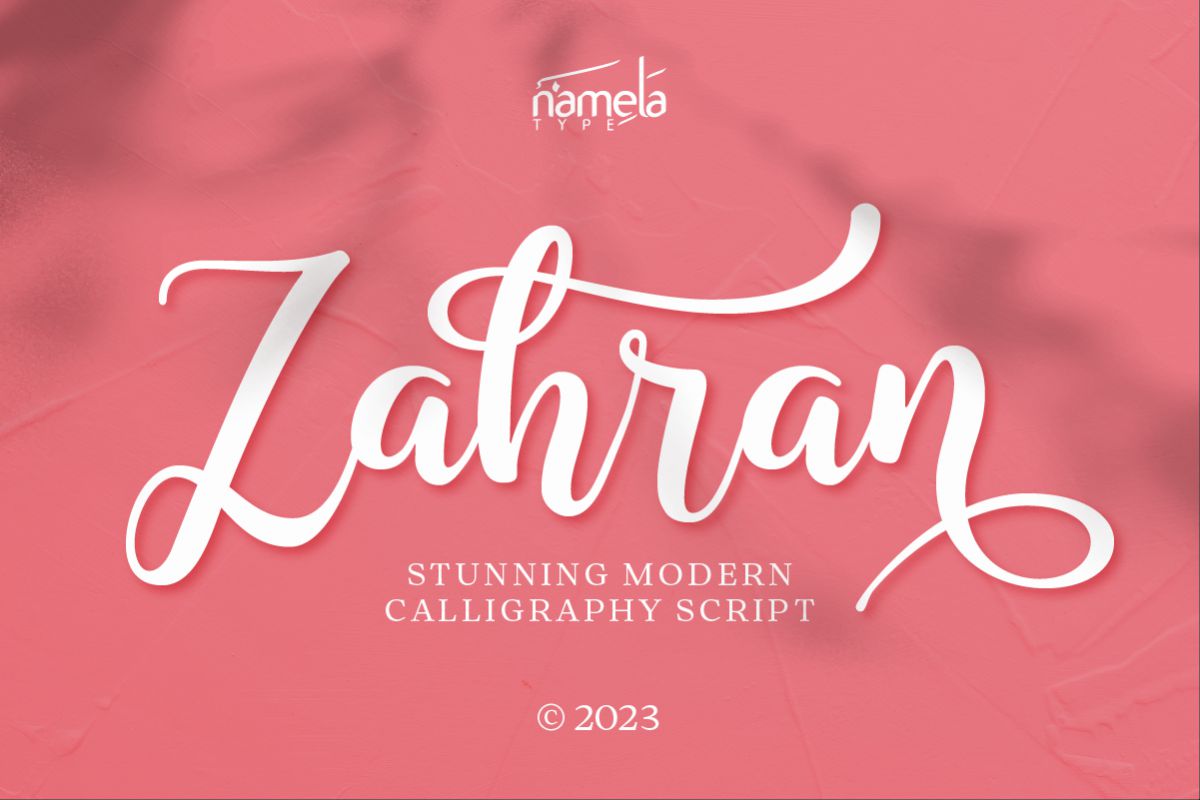
Zahran Regular
Zahran Font- A Stunning Modern Calligraphy Script Typeface for Wedding & ePub Some typefaces carry emotion before a single word is read—and Zahran is one of them. This elegant handwritten script font brings together the flowing grace of modern calligraphy with the warmth of genuine hand-lettering, resulting in a Latin design that feels personal, refined, and deeply expressive. From wedding invitations to premium branding, editorial layouts to social media design, Zahran adds a human touch that